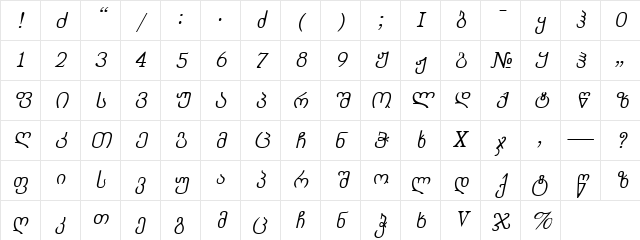
Chveulebrivy-ITV Italic Free Font
Design Context for Chveulebrivy-ITV
Chveulebrivy-ITV is a composed and adaptable typeface that performs quietly and consistently across a wide range of design contexts. The slanted form adds forward momentum and visual energy.